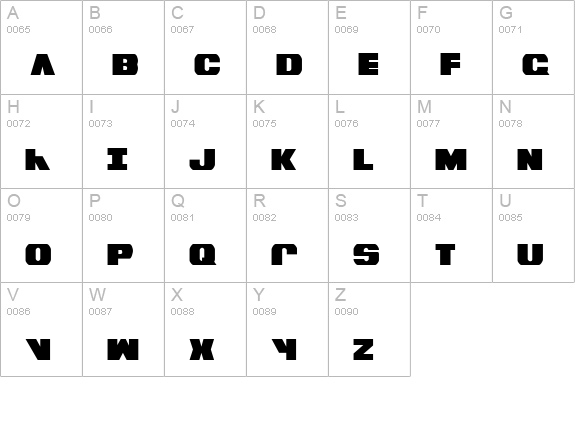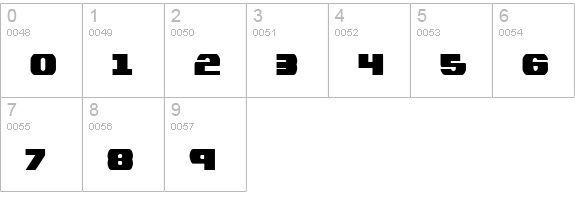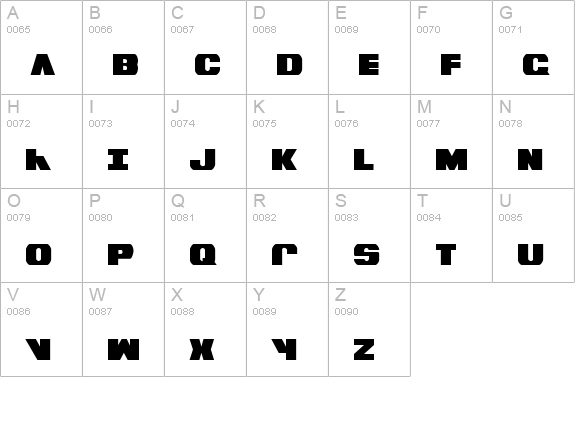
Bummer Condensed is a distinctive, condensed-width variant in the Bummer typeface family \xE2\x80\x94 well suited to design and typography projects.
Bummer Condensed font is a sleek and modern typeface that exudes sophistication and style. With its condensed letterforms and sharp angles, this font is perfect for creating eye-catching designs and headlines. The clean lines and distinctive look of Bummer Condensed make it a versatile choice for a wide range of projects, from branding to editorial design. What's even better is that Bummer Condensed font is available for free download at FontsMarket.com! This means you can easily access this stylish font and incorporate it into your creative projects without any cost. Whether you're a designer looking to add a contemporary touch to your work or a business owner in need of a fresh new font for your branding, Bummer Condensed is a fantastic choice that won't break the bank. Download it today and elevate your designs with this modern and elegant typeface.